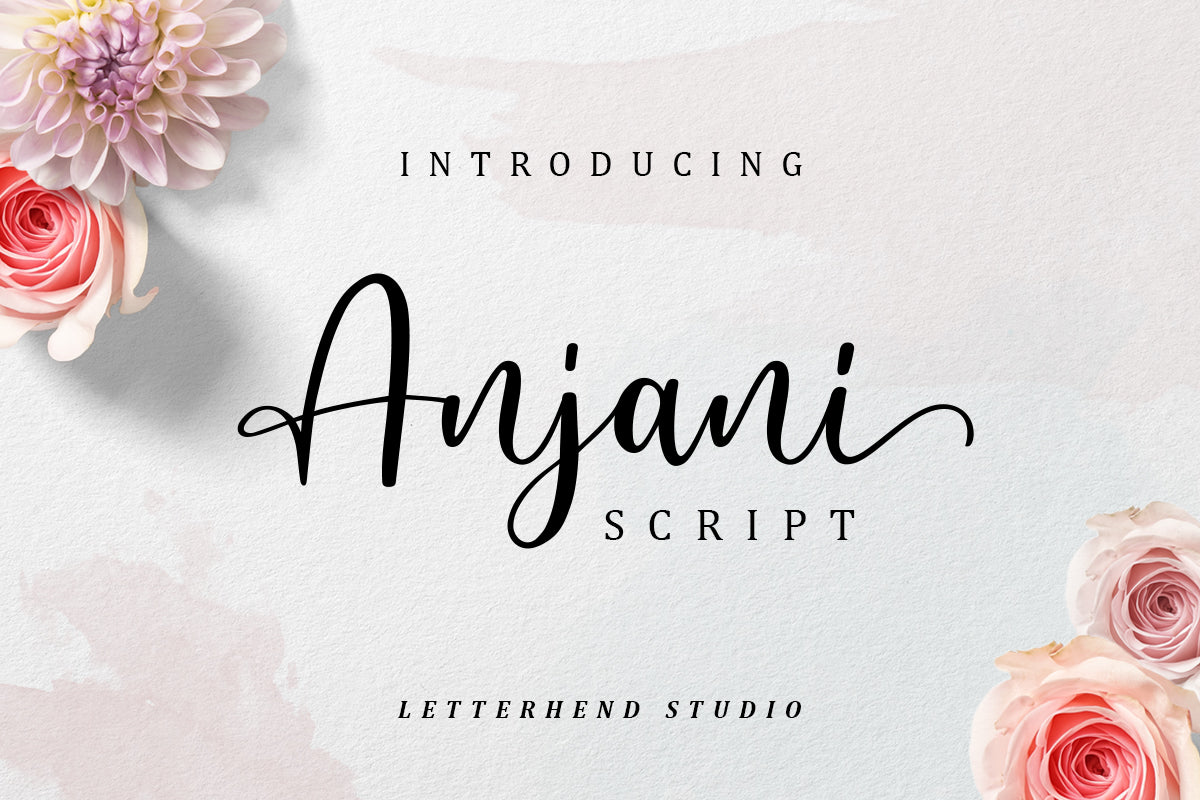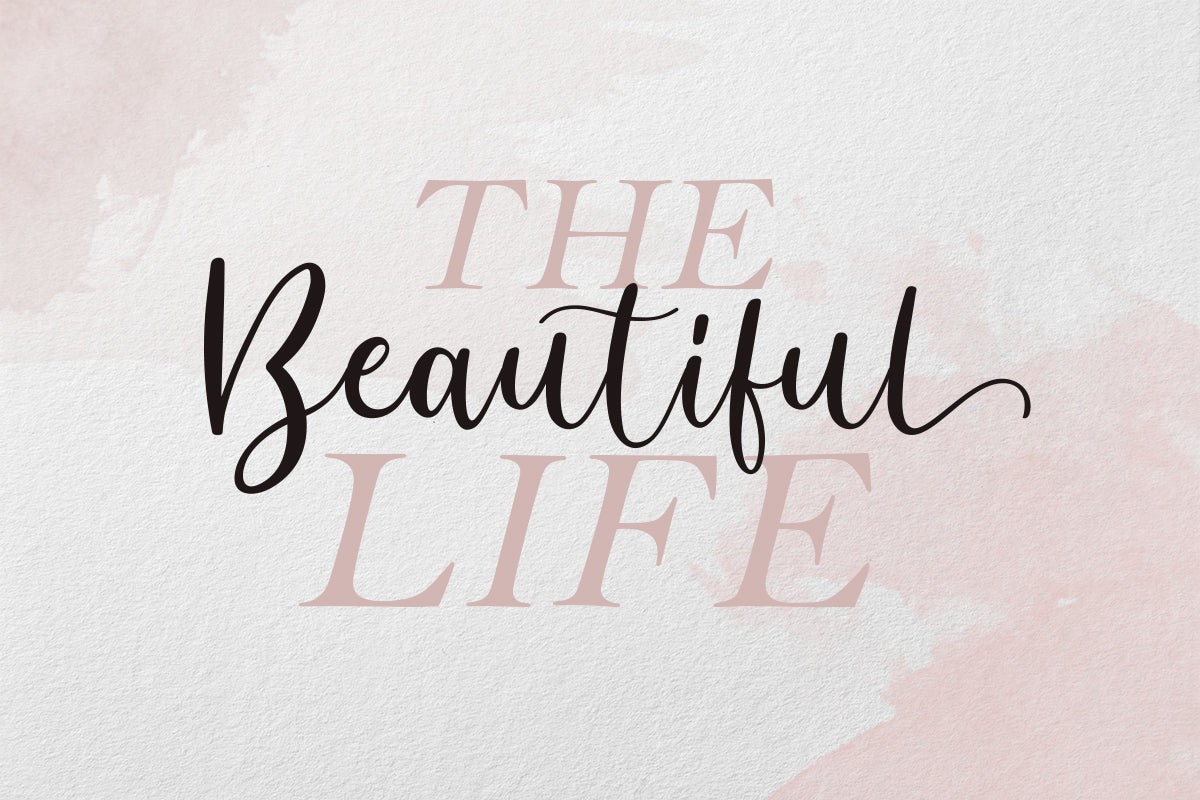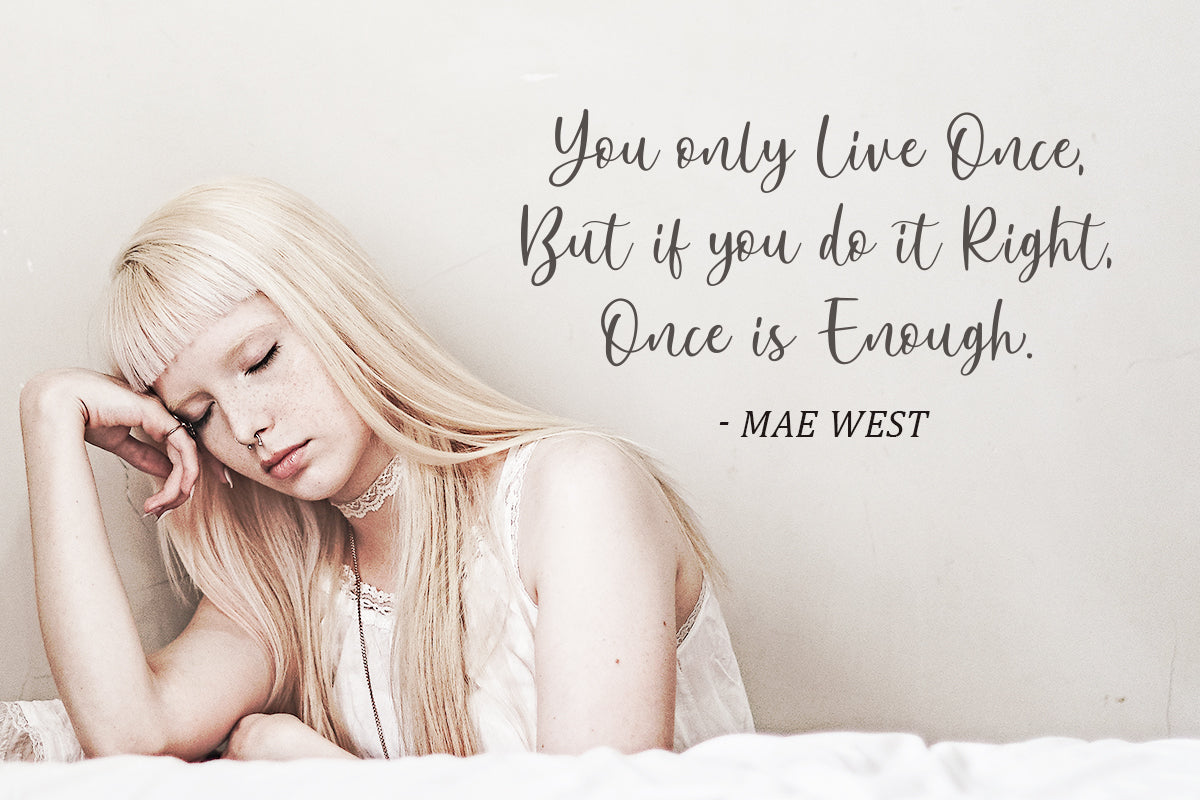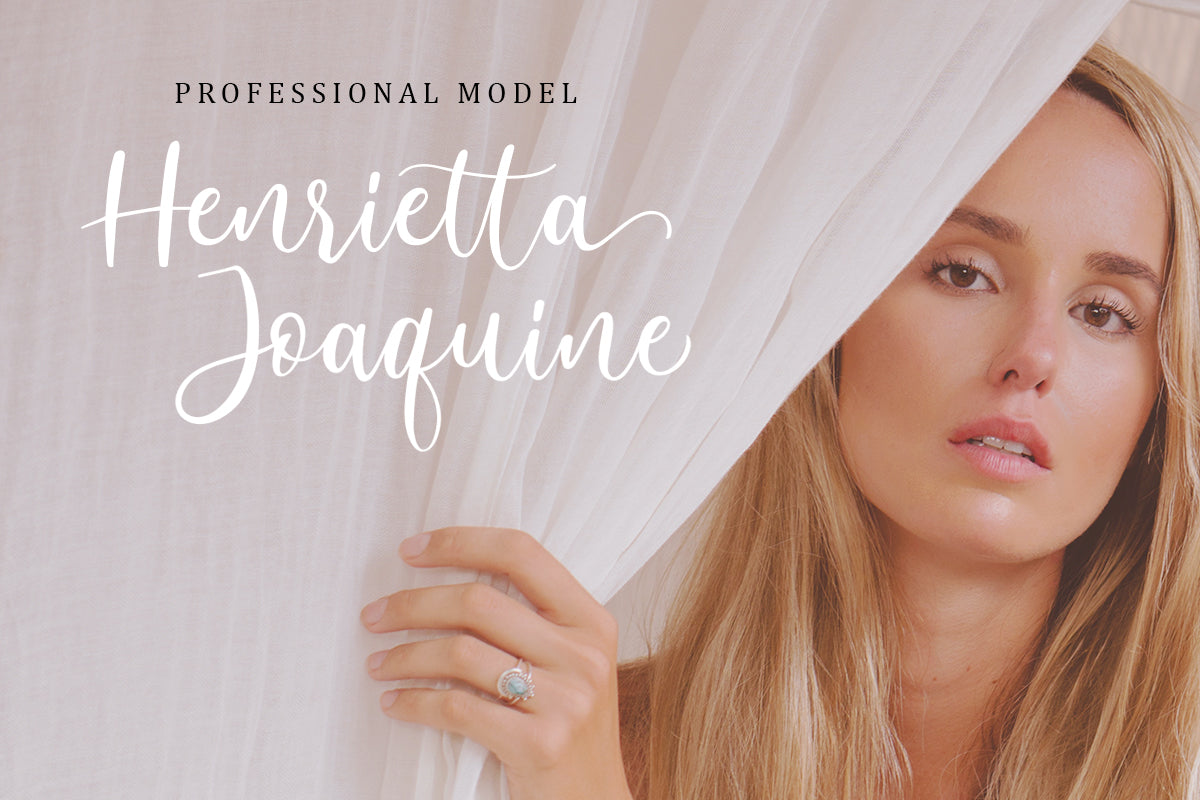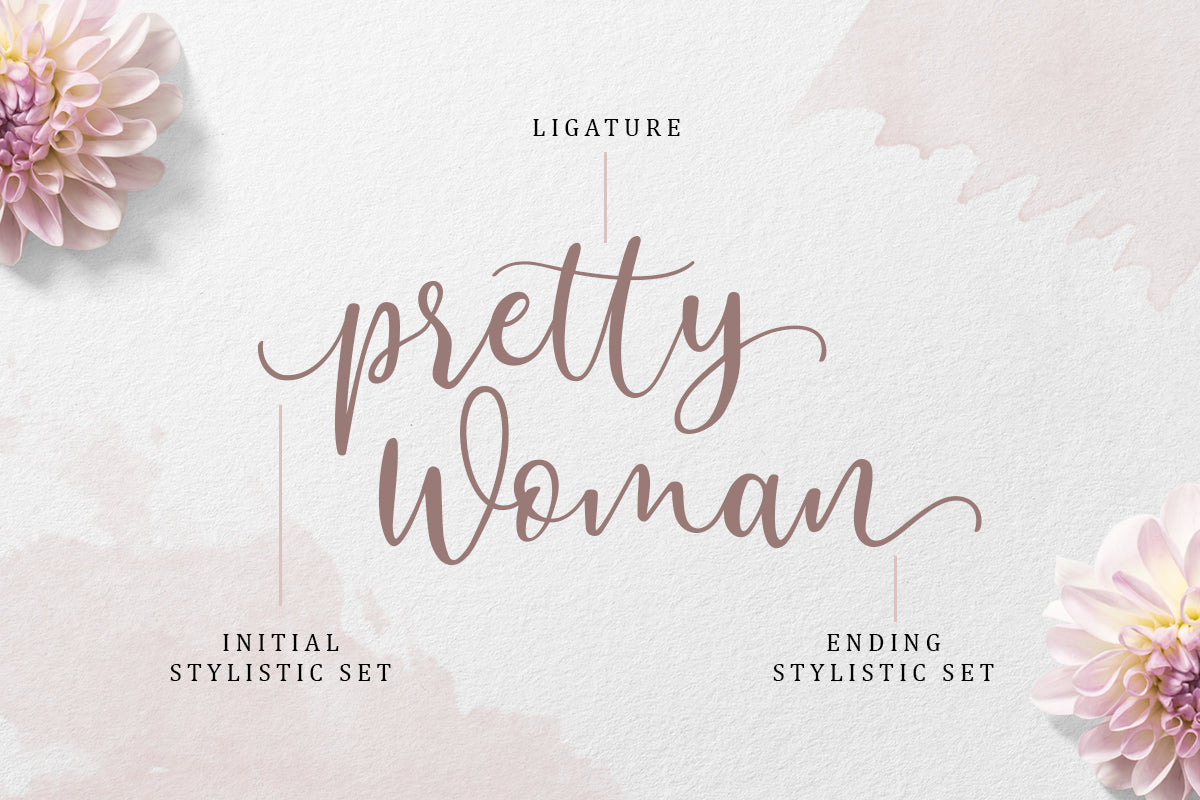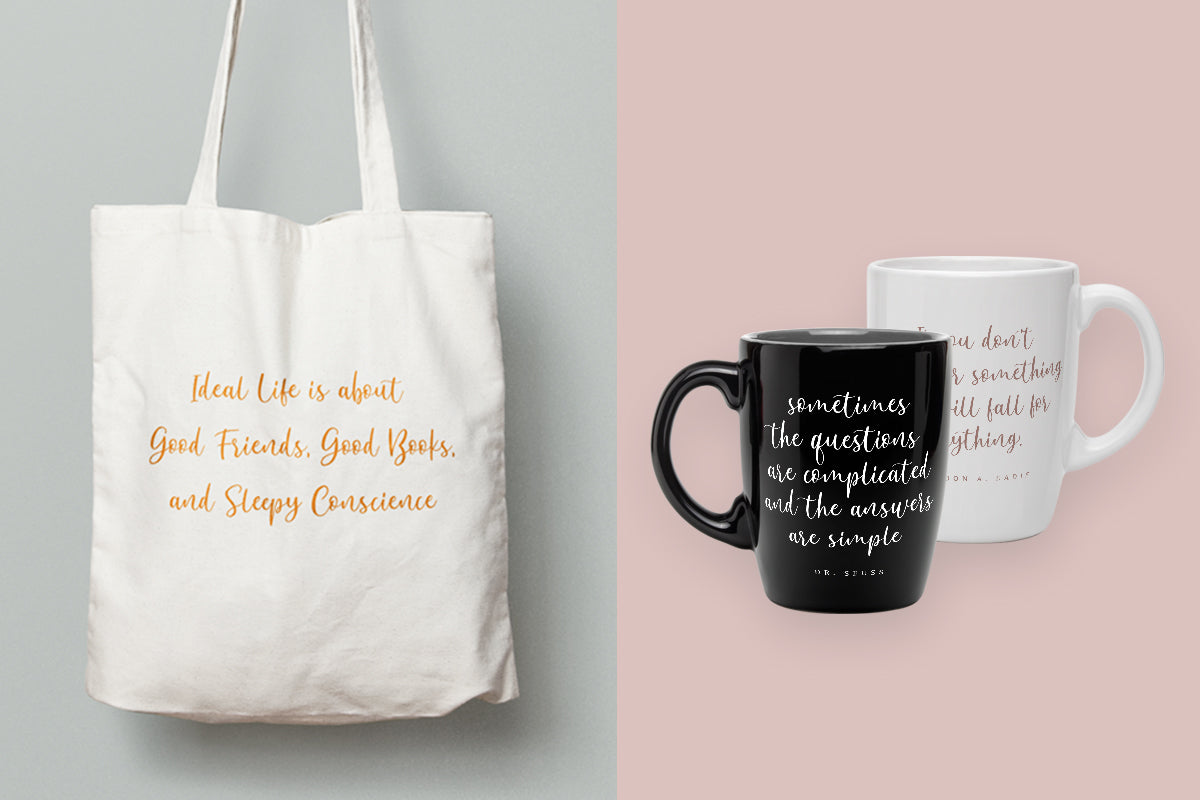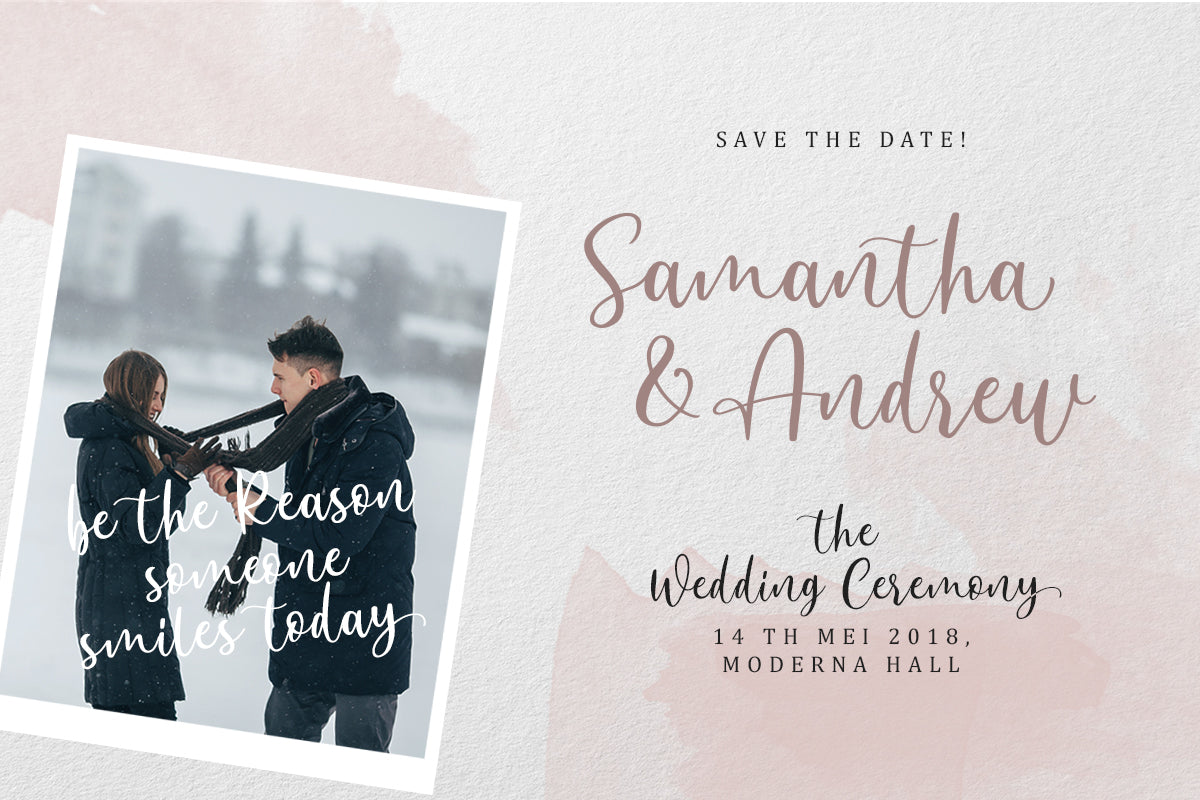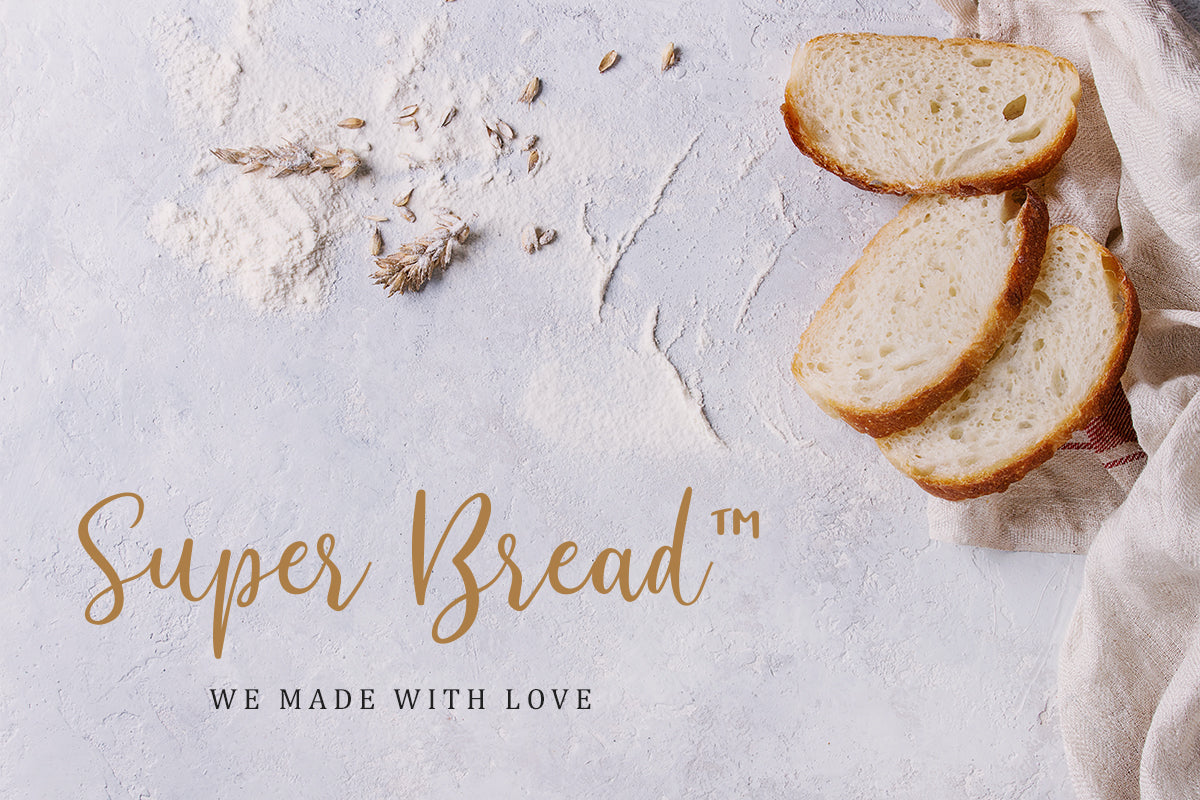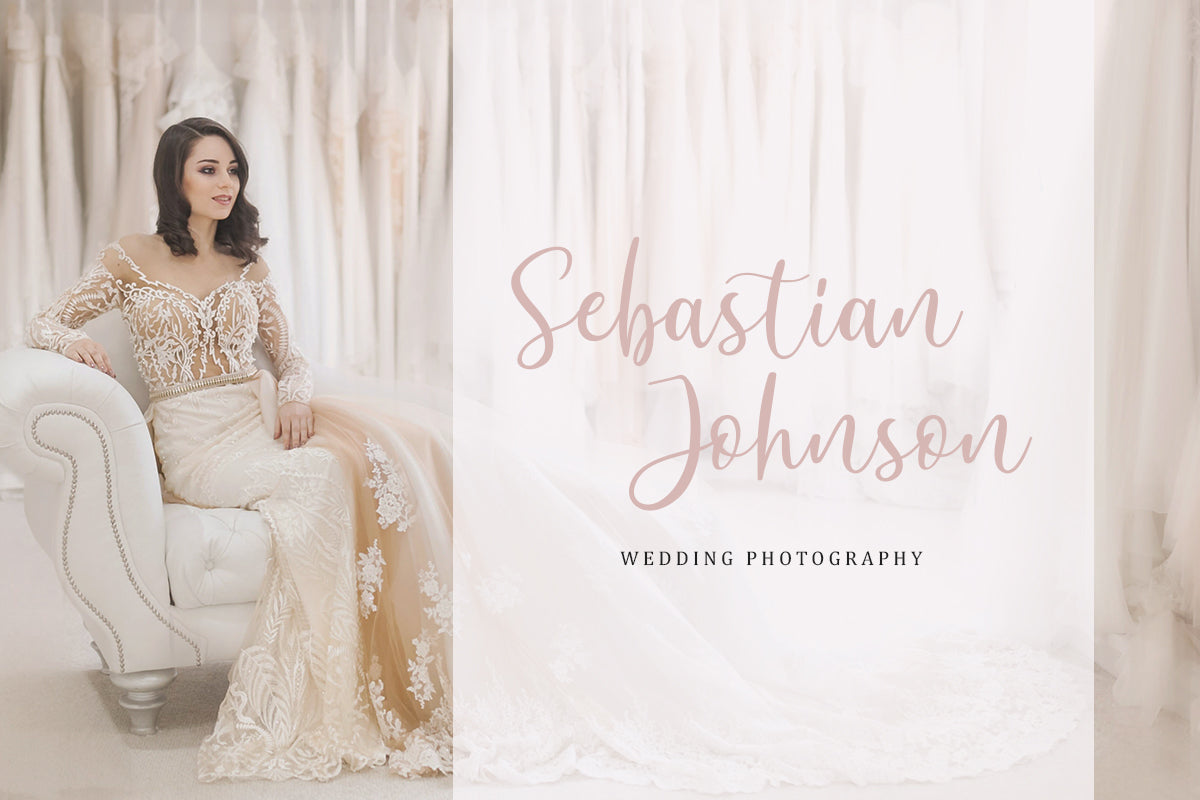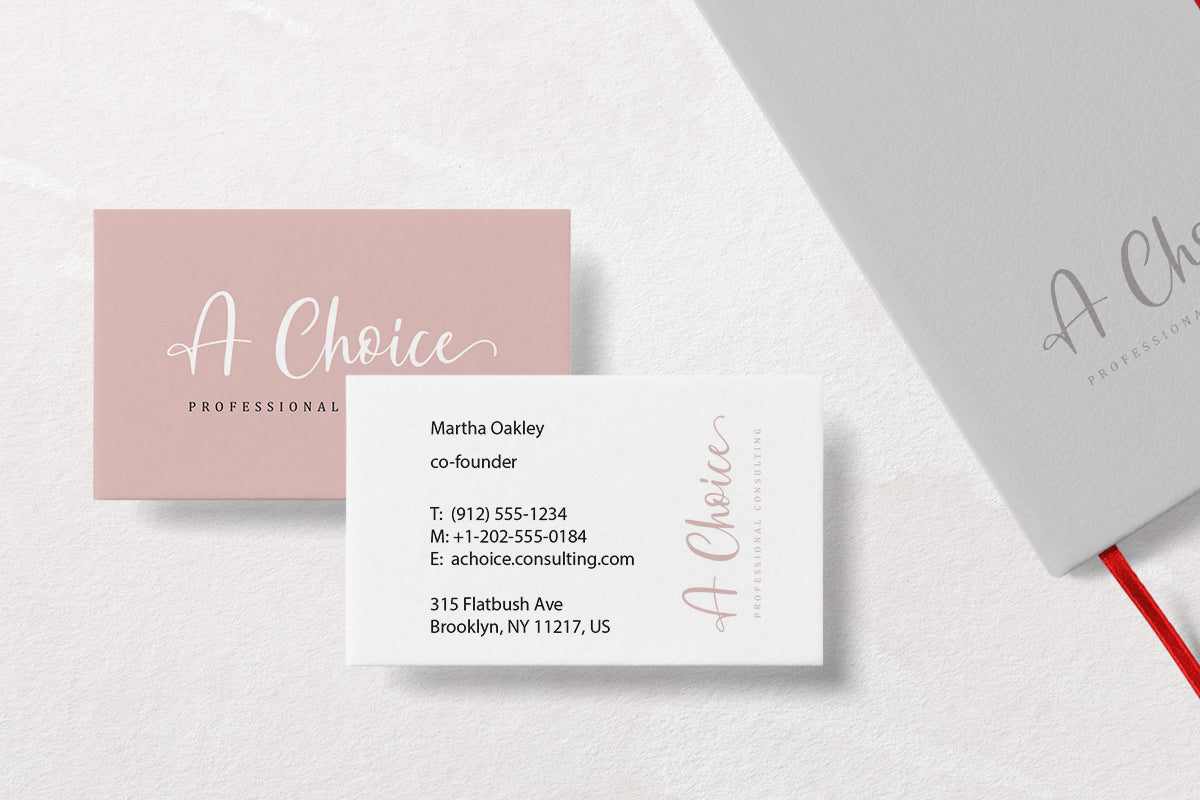
Introducing Anjani, a modern calligraphy script that brings a romantic feel. Its natural handwritten style is perfect for those who need a typeface for headlines, logotypes, apparel, invitations, branding, packaging, advertising, and more. This typeface includes uppercase and lowercase letters, punctuation, symbols, numerals, stylistic alternates, ligatures, multilingual support, and is fully PUA encoded.
uppercase & lowercase
numbers and punctuation
multilingual